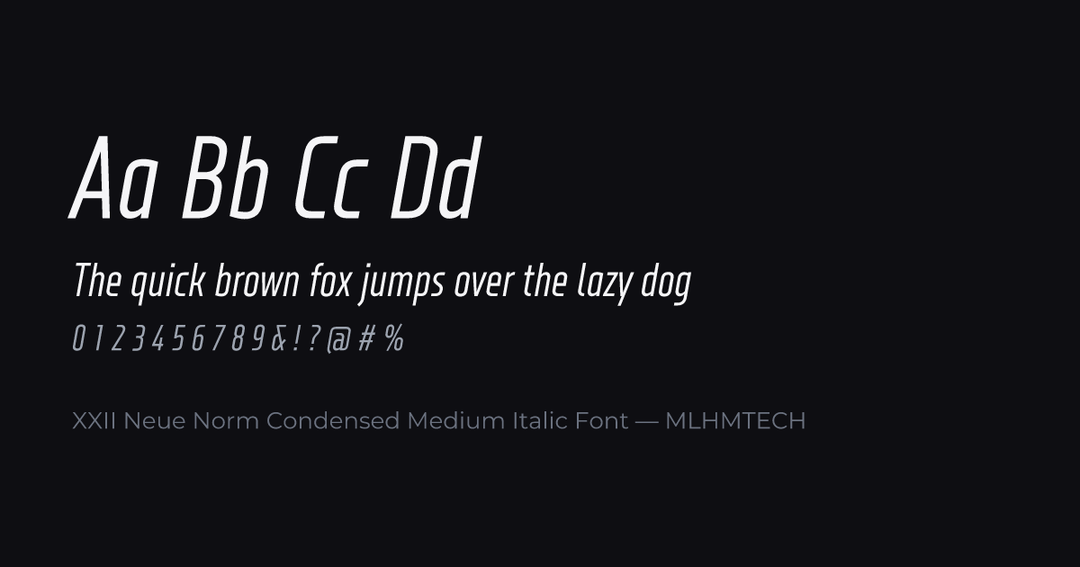
XXII Neue Norm Condensed Medium Italic Font
A modern condensed sans-serif font with a medium weight and italic style. Ideal for impactful headlines and sophisticated branding.
XXII Neue Norm Condensed Medium Italic is a versatile typeface that combines contemporary geometry with a touch of elegance. Its condensed letterforms save space while maintaining high legibility, making it perfect for posters, video titles, and editorial designs.
The medium weight offers a balanced presence, not too heavy nor too light, while the italic slant adds dynamic movement. This font works exceptionally well in branding projects, logos, and any design that requires a modern yet refined look.